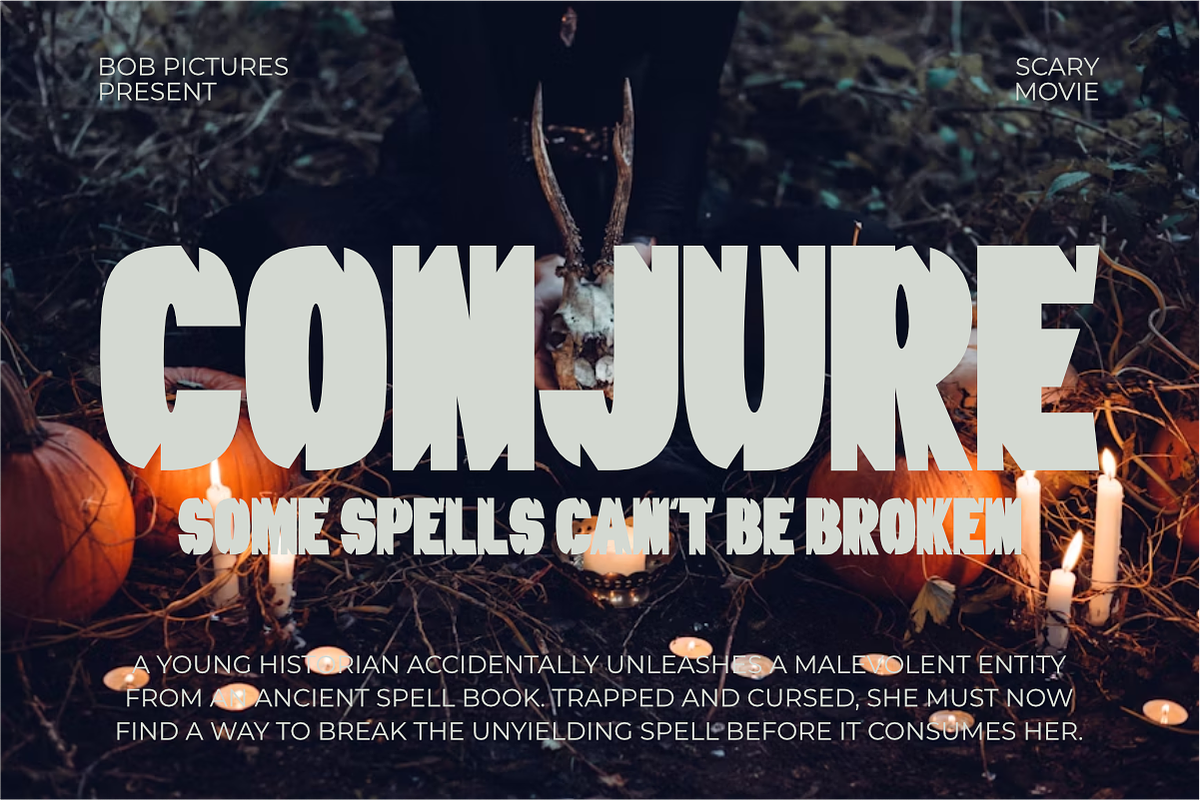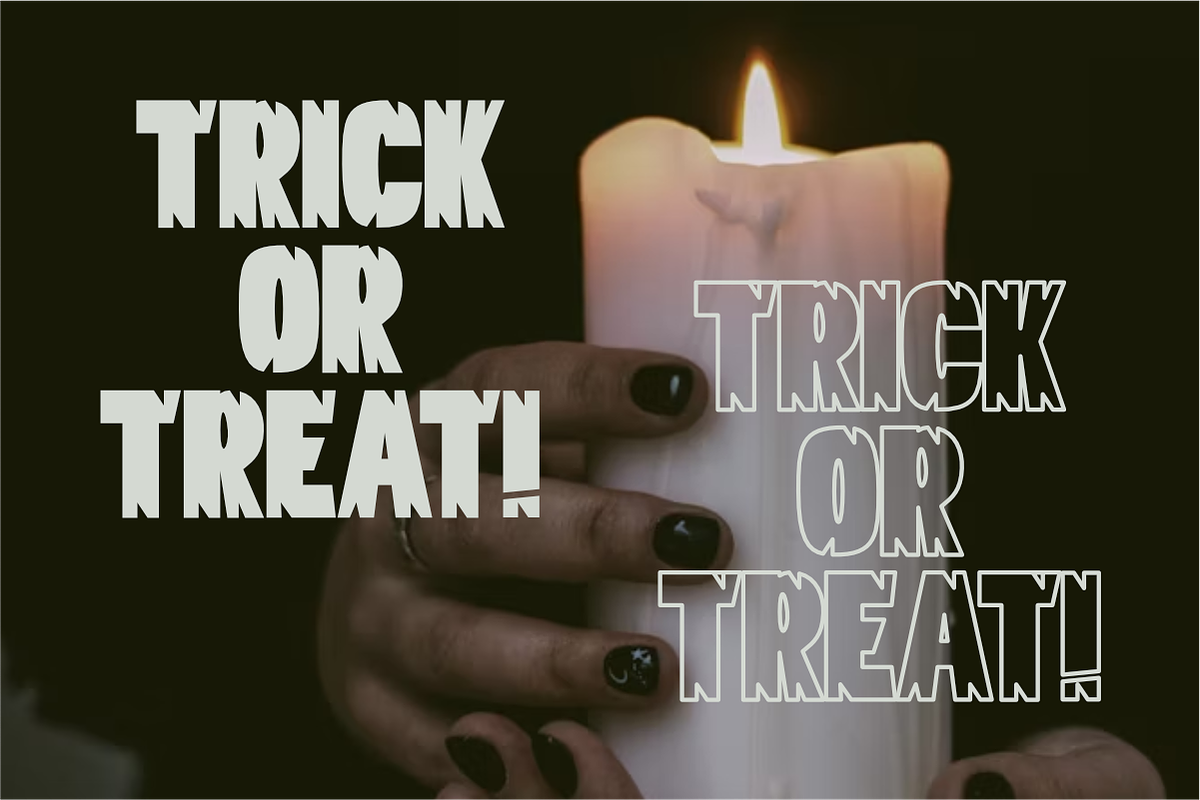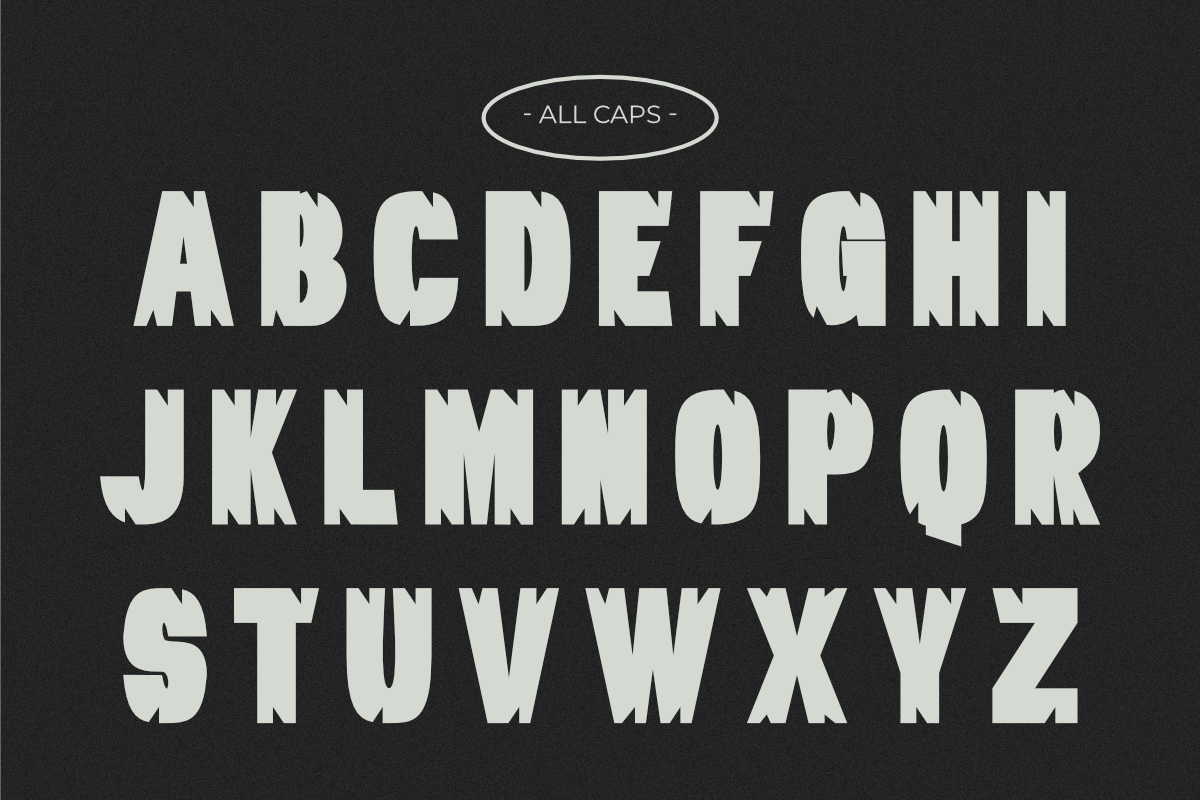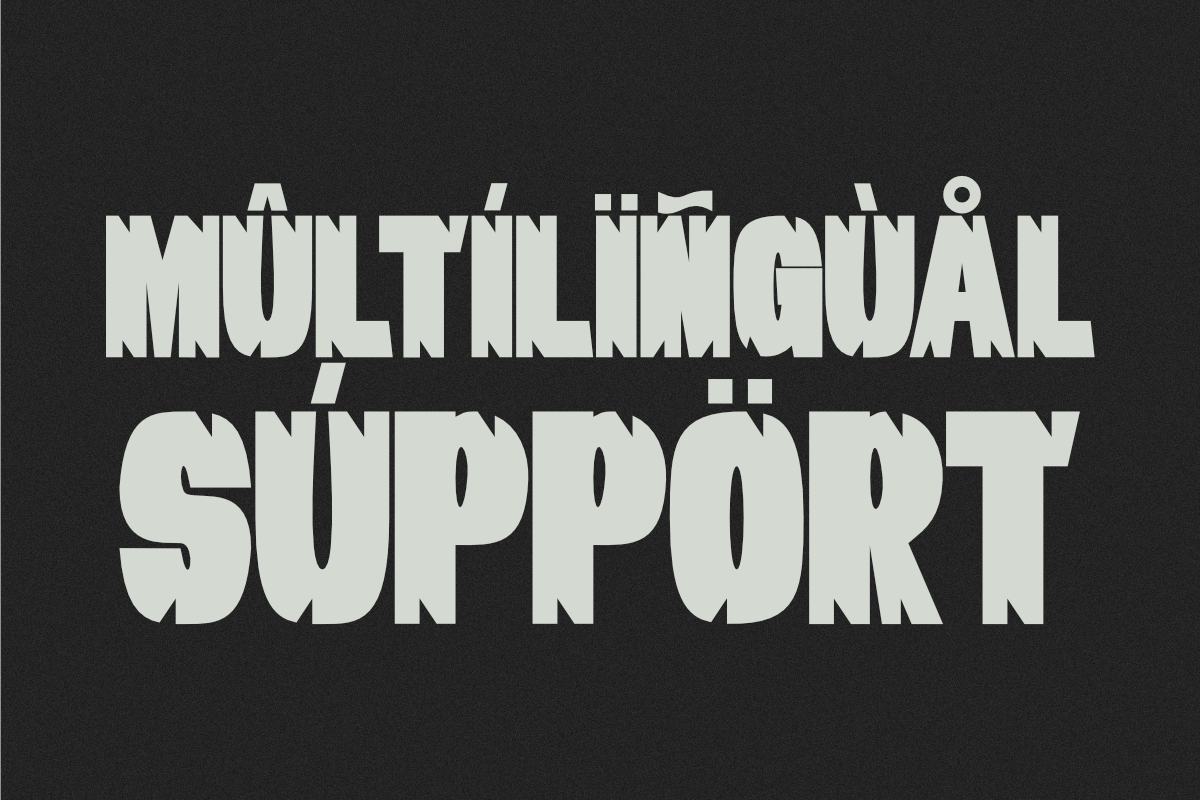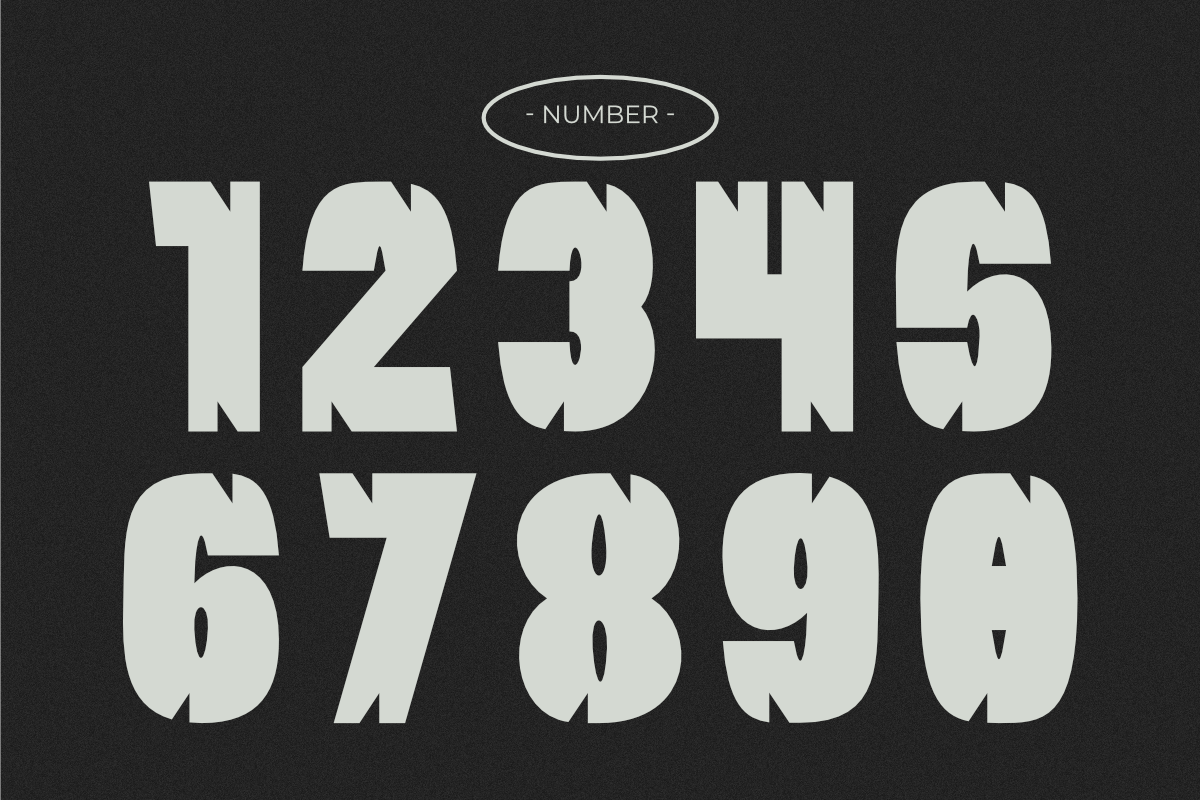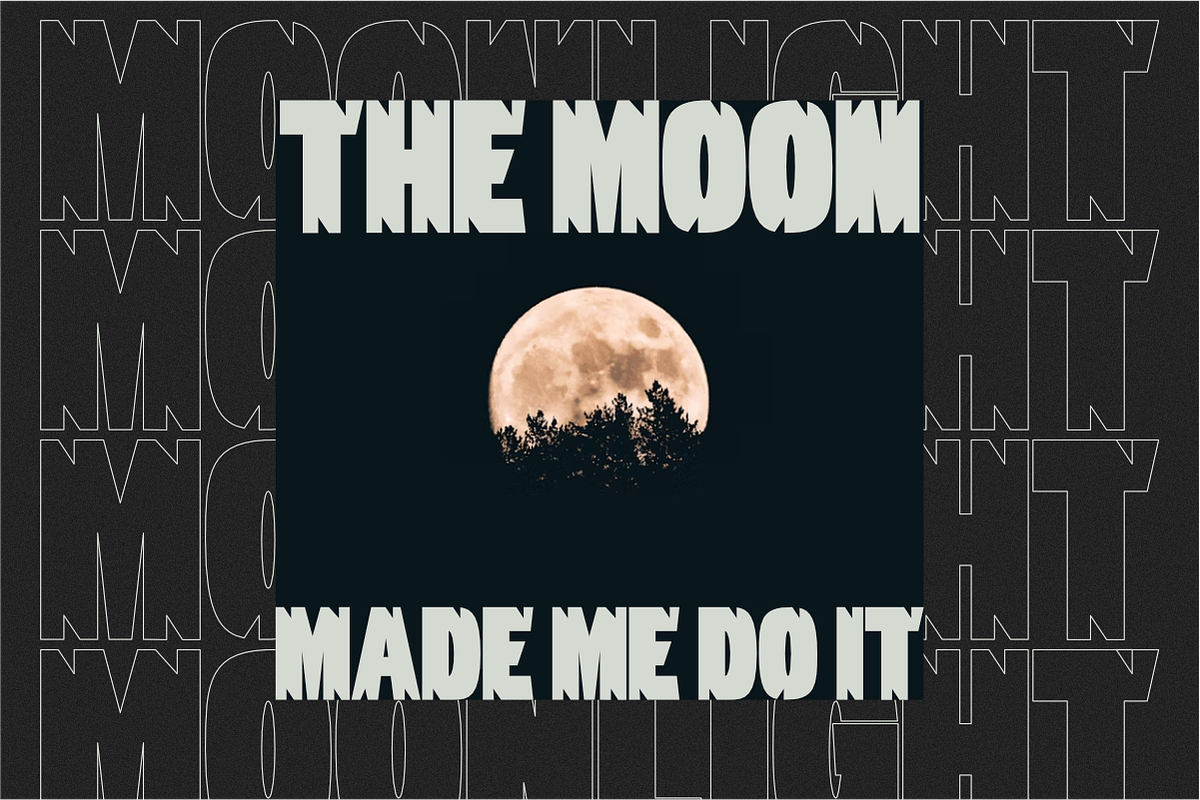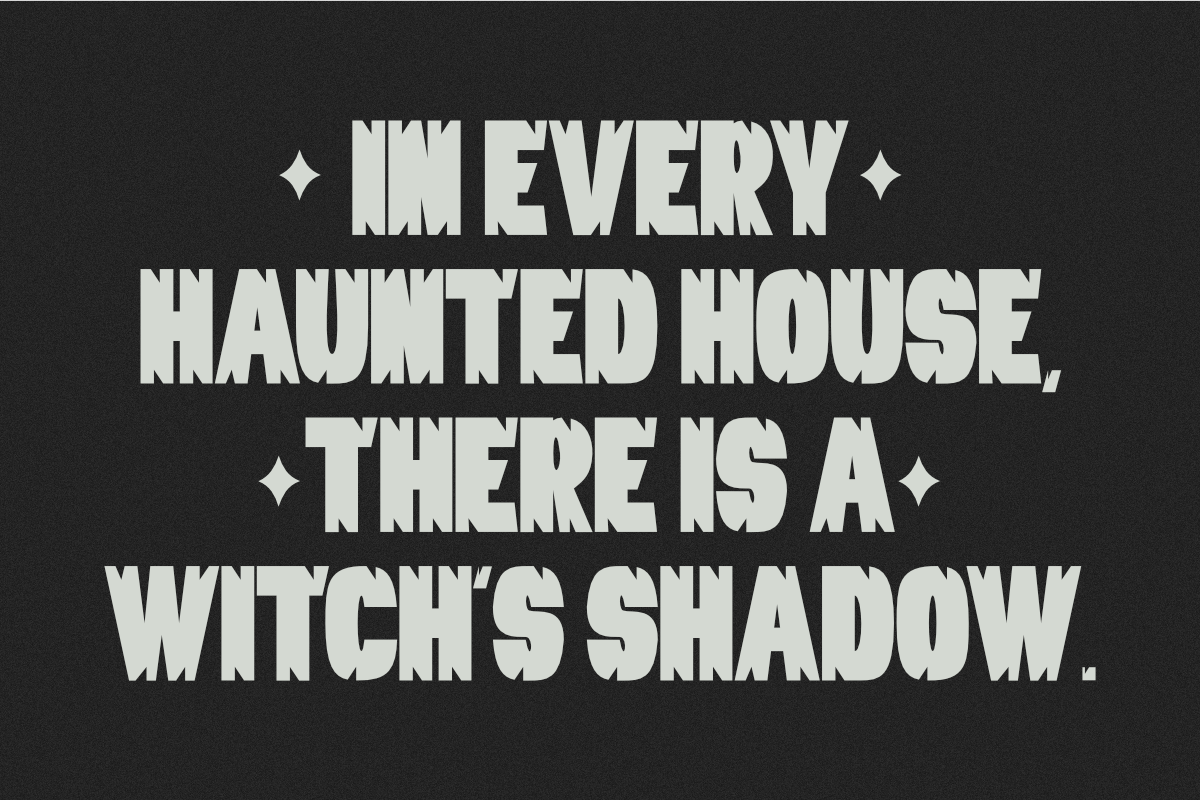
Witch Haunted - Halloween Display
Witch Haunted is a bold, Halloween display font with a clean but unsettling edge. Its thick, solid letterforms are balanced with unique, sharp details that give it a "thorny" or "spiky" feel. This makes it perfect for creating a hauntingly modern atmosphere. This display font is ideal for movie posters, Halloween party invitations, spooky product packaging, and any project that needs a strong, memorable look with a dark, magical twist.